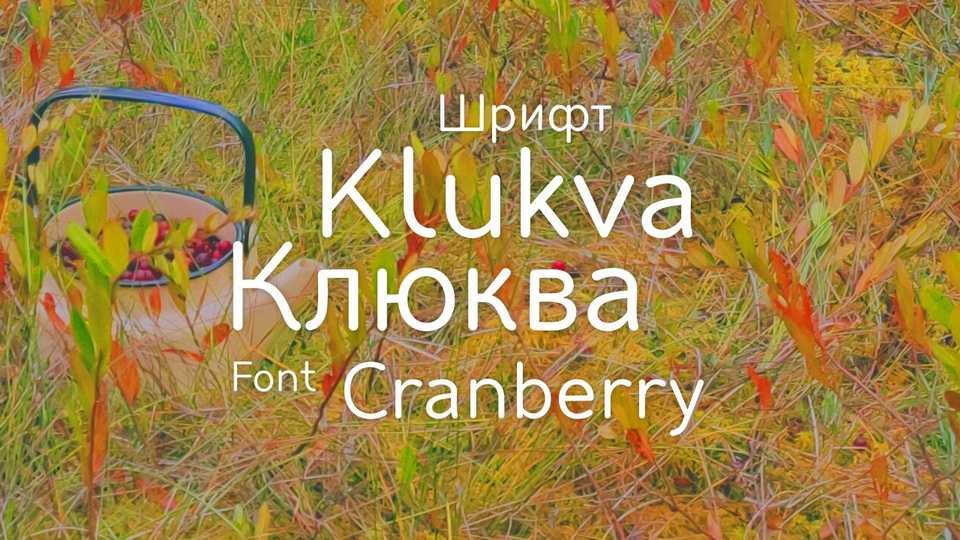
Download Klukva font, a handcrafted sans serif typeface with an organic look. Klukva is a great choice for brand design, editorial project, children designs, cards and invitations, perfect for giving any project a handmade feel.
Designer: Ivan Lisichkin